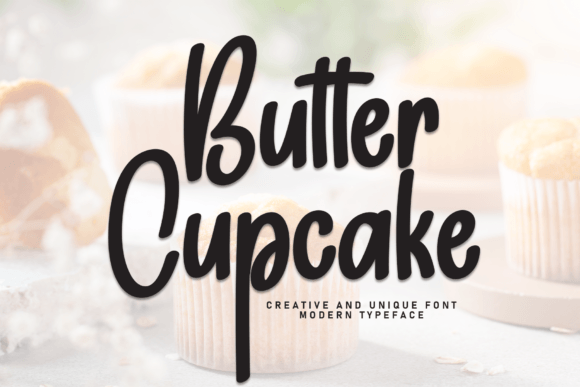
Discover the Sweet Delight of Handwritten Charm
Have you ever found yourself rummaging through your stash of craft supplies, searching for the perfect font to give your latest project a personal touch? That’s exactly what happened to me last weekend, and I stumbled upon a hidden gem – the Butter Cupcake Font. This delightful display font is designed to infuse a sense of whimsy and fun into any design endeavor.
With its playful and friendly demeanor, the Butter Cupcake Font is the perfect companion for any creative project. Whether you’re designing a wedding invitation or a greeting card, this font is sure to add a unique touch that sets your work apart. As a designer, you’ll appreciate the versatility and personality that this font brings to the table, making it a valuable addition to your toolkit.
Butter Cupcake Font Key Features
- Font Family: A beautiful, cursive script font with a whimsical feel.
- Unique Characteristics: Features a unique blend of elegance and playfulness, making it perfect for baking-related designs, wedding invitations, and other creative projects.
Designer Review: Butter Cupcake Font
At first glance, the Butter Cupcake Font ✨ looks like a delightful addition to any bakery-themed design project. The playful, whimsical feel of the font is reminiscent of freshly baked cupcakes. I appreciate how the font’s rounded edges and bubbly texture give it a childlike charm that’s hard to resist.
The font’s versatility ✨ is another plus, as it can be used for a variety of design elements, from logos to signage to product labels. I’ve seen designers use it effectively in packaging designs, menus, and even wedding invitations. The font’s cursive script style also lends itself well to handwritten-style typography.
- ⚠️ Limited character set: The font’s character set is relatively small, which may limit its use in longer blocks of text.
- ⚠️ Not suitable for large text: While the font is perfect for small text elements, it can become difficult to read when used for large headings or body text.
- ⚠️ May not be suitable for formal designs: The font’s playful nature may not be suitable for more formal design projects, such as corporate branding or serious news publications.
Overall, the Butter Cupcake Font is a delightful addition to any bakery-themed design project. While it has some limitations, its playful charm and versatility make it a great choice for designers looking to add a touch of whimsy to their designs.
The Butter Cupcake Font is perfect for:
- Bakery or dessert-themed designs.
- Food-related branding or marketing materials.
- Whimsical or playful designs.
Use the Butter Cupcake Font in combination with other playful fonts to create a unique and eye-catching design.
Experiment with different font sizes, colors, and styles to add visual interest to your design.